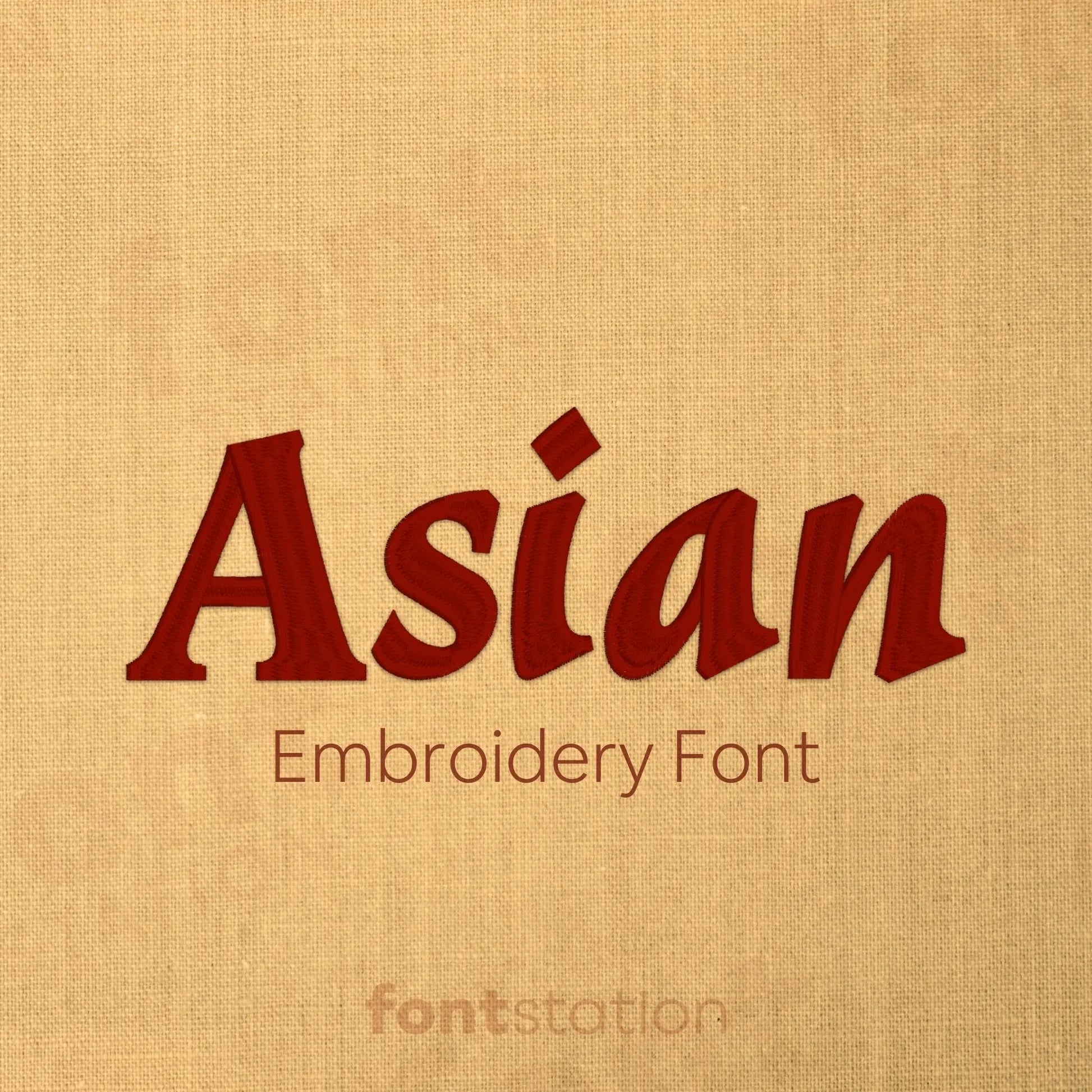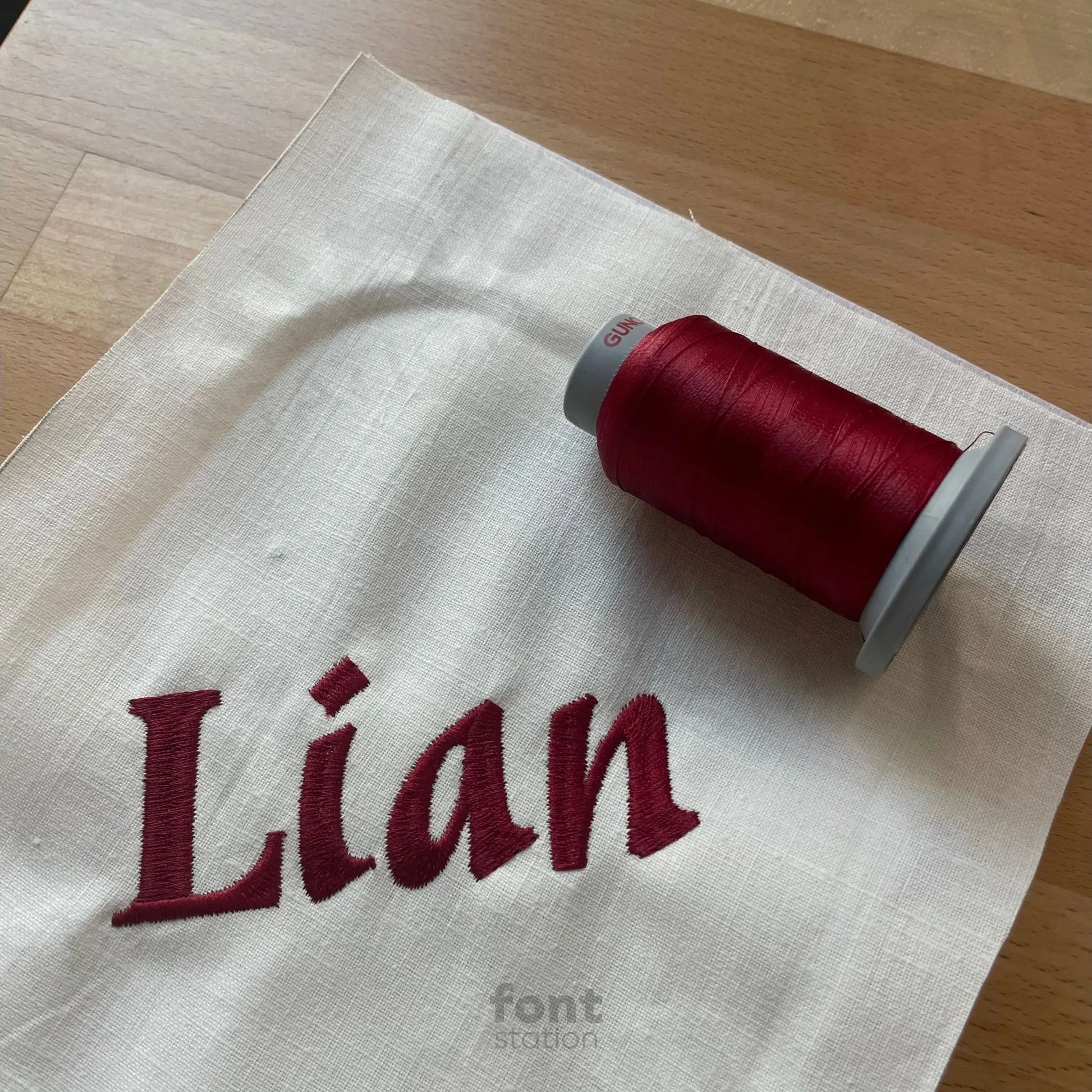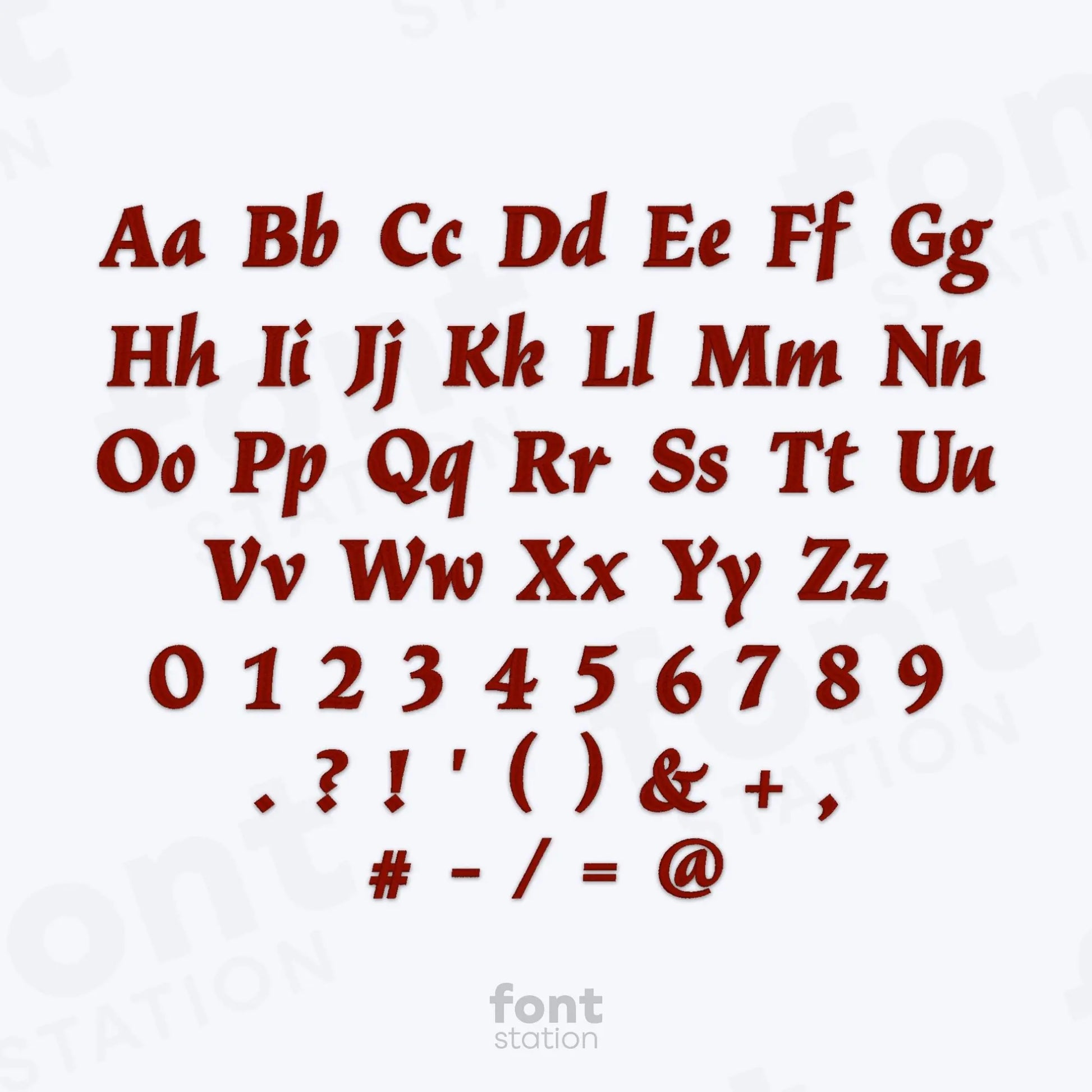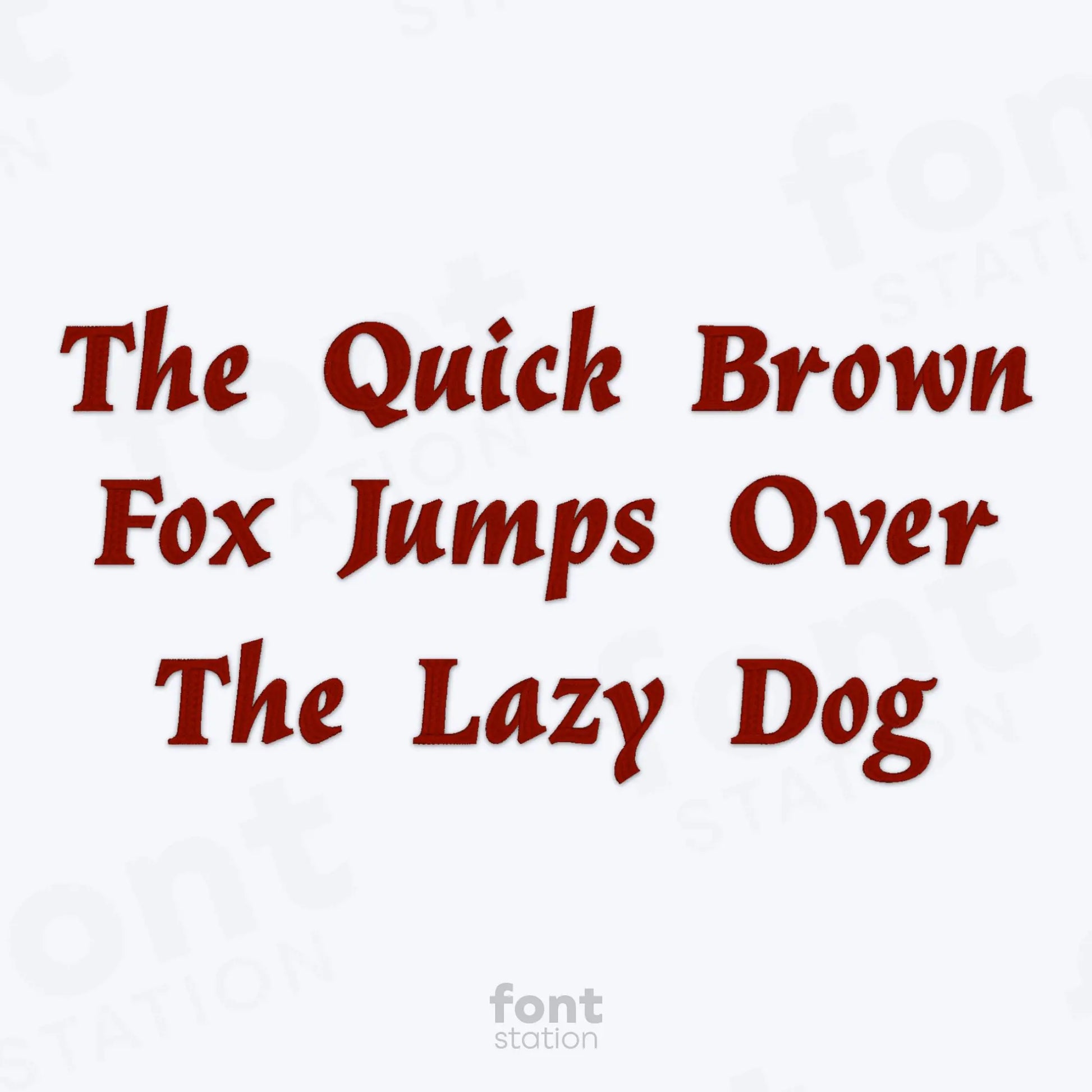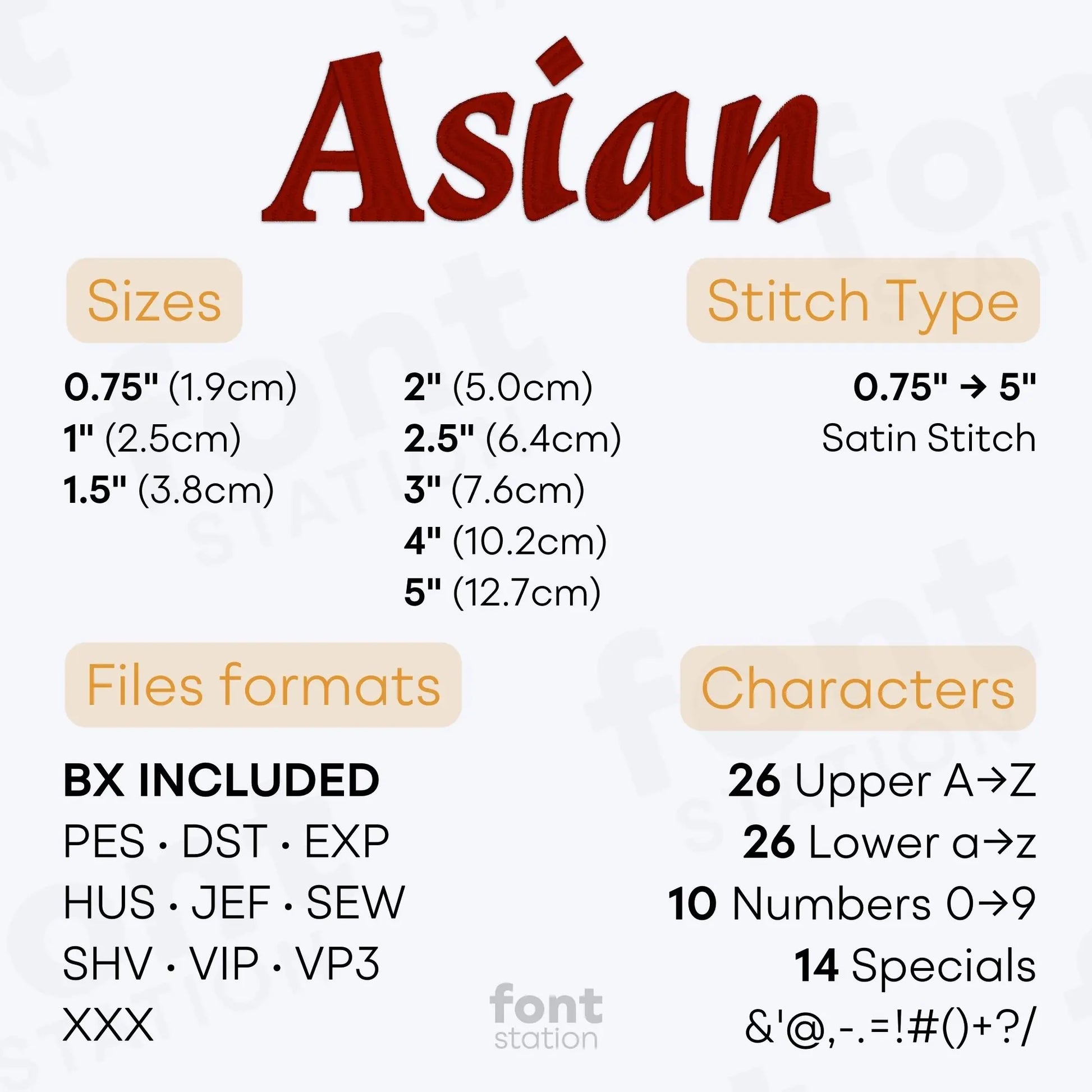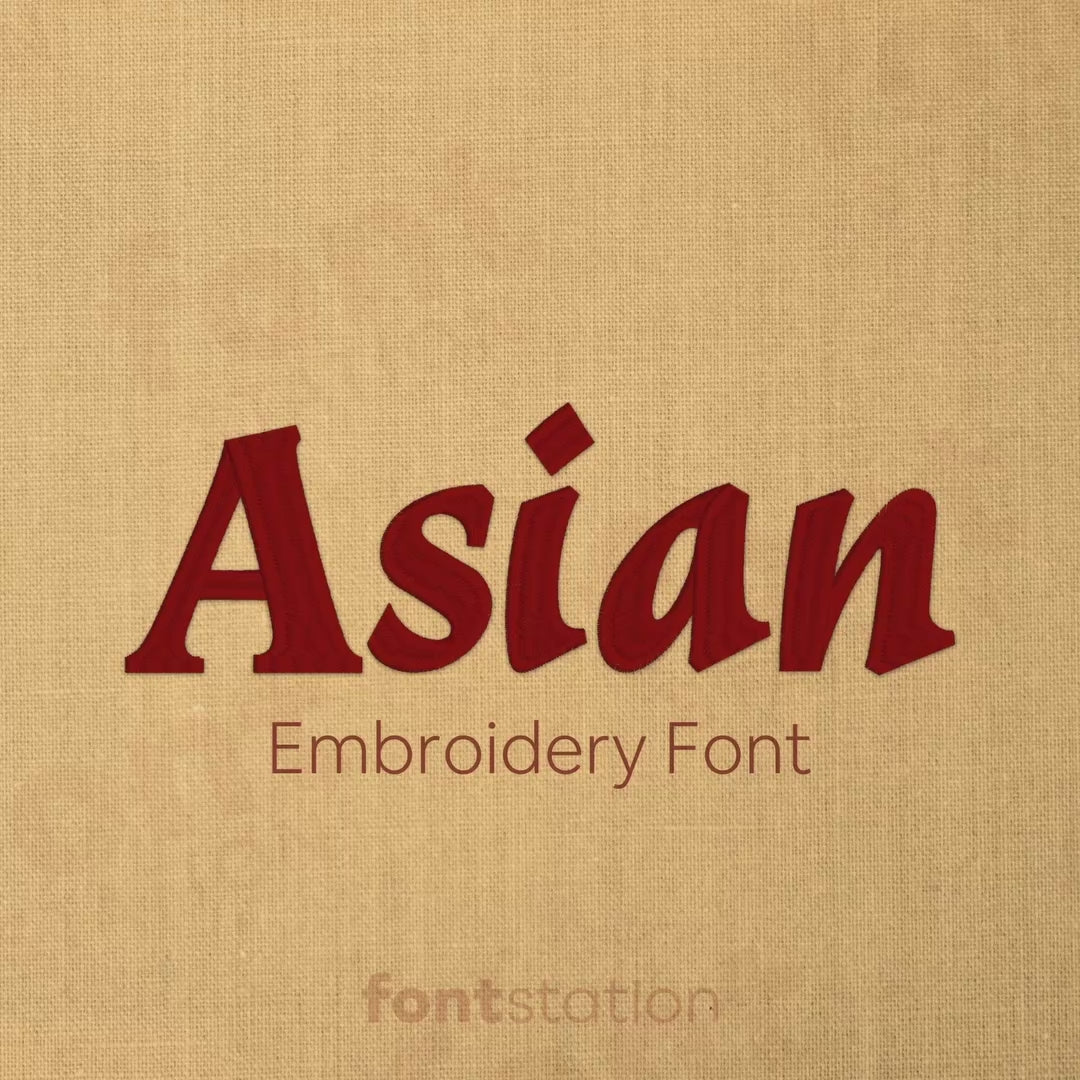
Asian Embroidery Font
Discover our Asian embroidery font - a bold, Oriental-style alphabet perfect for unique embroidery designs. These serif letters stitch beautifully on any embroidery machine, making them ideal for your next personalized project.
About the Asian Embroidery Font
Our Asian embroidery font brings bold, Oriental-inspired style to your embroidery projects.
This distinctive embroidery font features a bold, serif alphabet inspired by traditional Asian lettering styles - perfect for themed designs, cultural gifts, and creative statement pieces. The machine-ready embroidery letters are professionally digitized to stitch cleanly and beautifully on any embroidery machine.